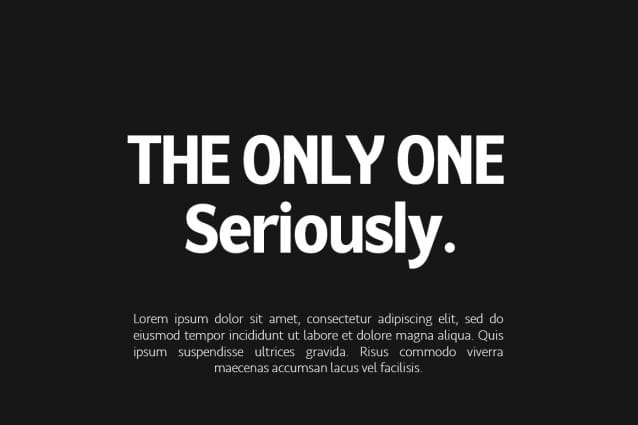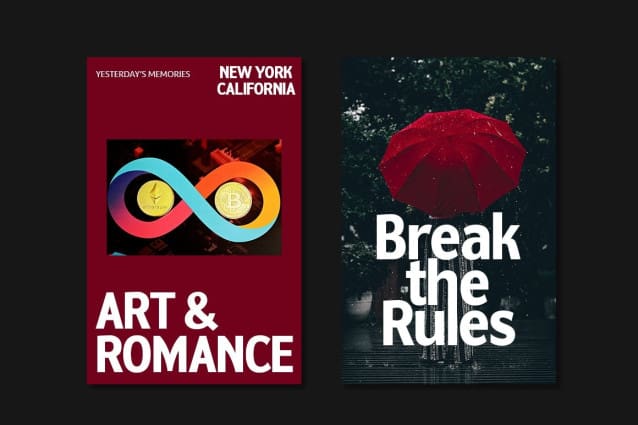
Ventura Font
Ventura Font is a beautiful vintage sans serif is so versatile and looks great in just about any context. With two different weights/styles including an italic version, you can create beautiful, consistent contrast in logos, printed materials, and more! You can even layer the stroke and solid styles to create a more modern effect.